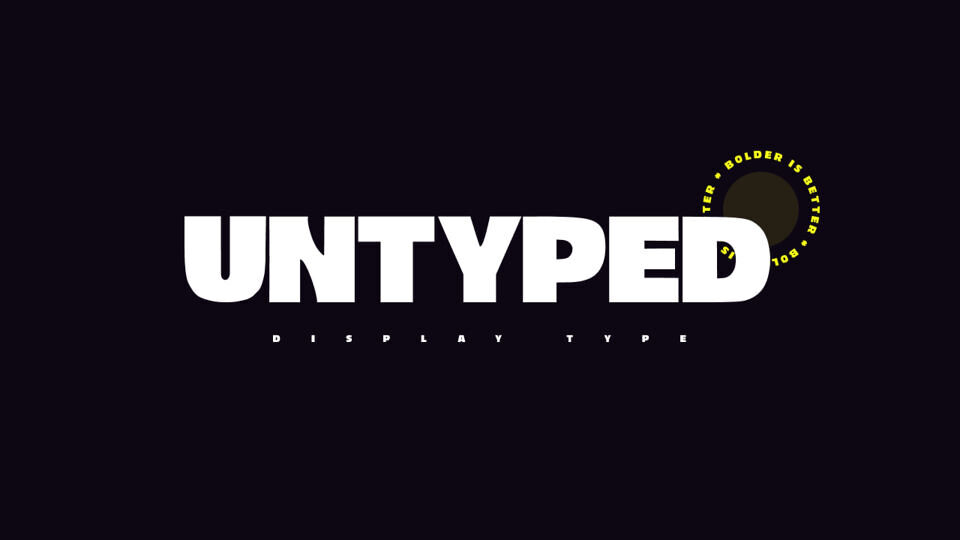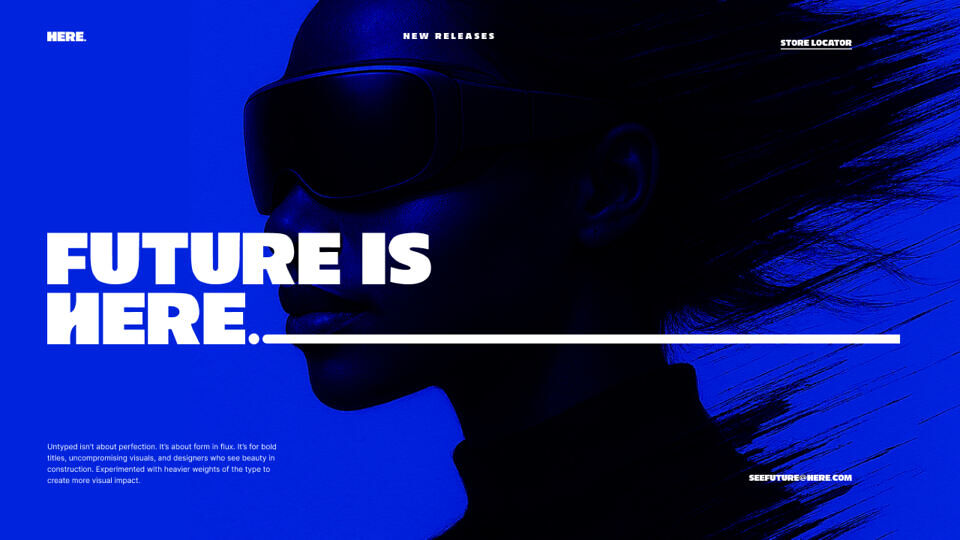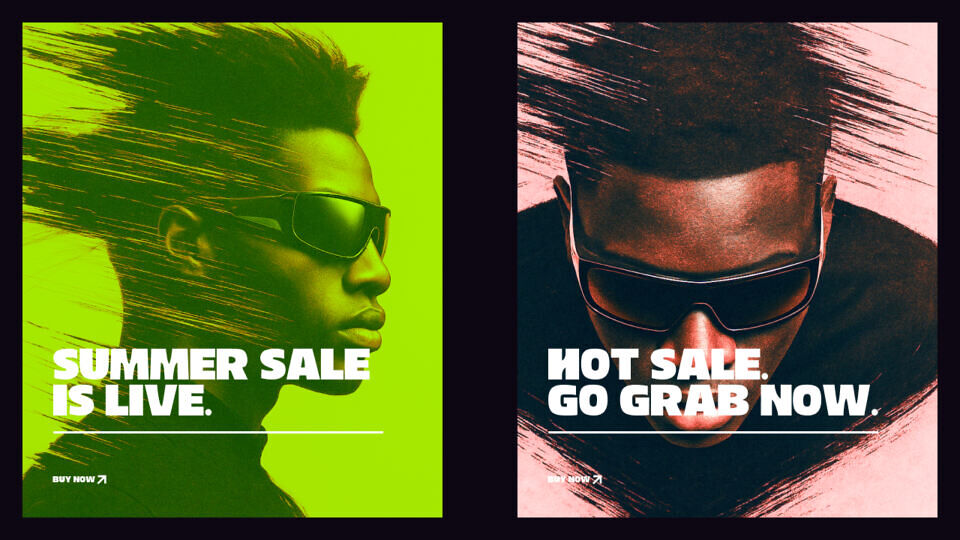
Untyped is a bold, display typeface created as a typographic experiment rooted in structure and minimalism. Designed exclusively for titles, headers, and statement visuals, Untyped features only uppercase letters, numbers & some special characters, stripped to their essential forms.
Untyped isn’t about perfection. It’s about form in flux. It’s for bold titles, uncompromising visuals, and designers who see beauty in construction. Experiment with heavier weights of the type to create more visual impact.